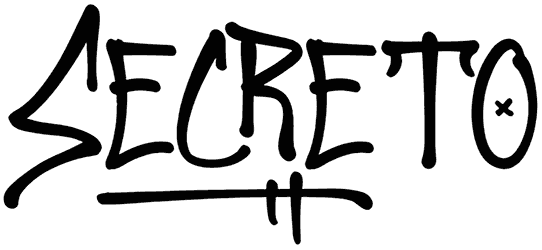
Secreto Font
A magical script font, such as Secreto, can make your graphic content, including street posters, digital banners, logos, and video game brochures, more interesting to the audience. While it doesn’t support lowercase letters, numbers, and punctuation, this T-shirt font can widen your selection range by offering two distinctive versions of uppercase letters.
Don’t forget this vital point that conveying a sense of dynamic, personalization, youth, and grunge is really a piece of cake with the help of Secreto.